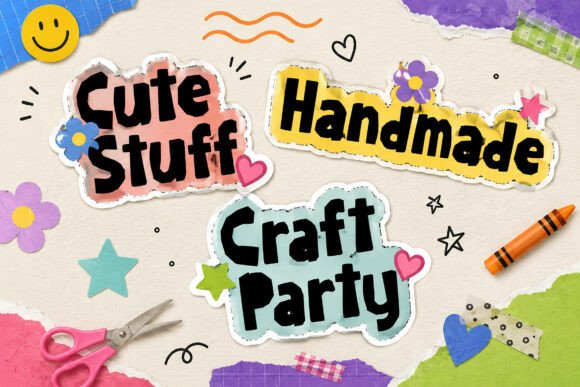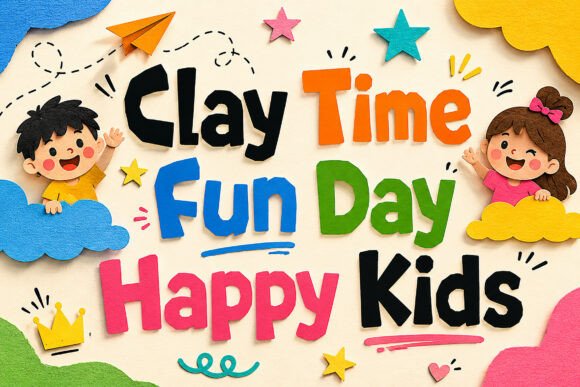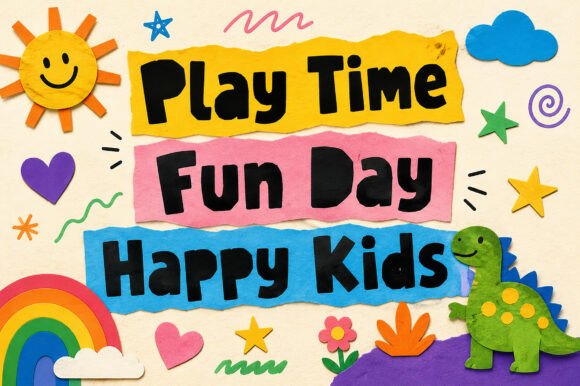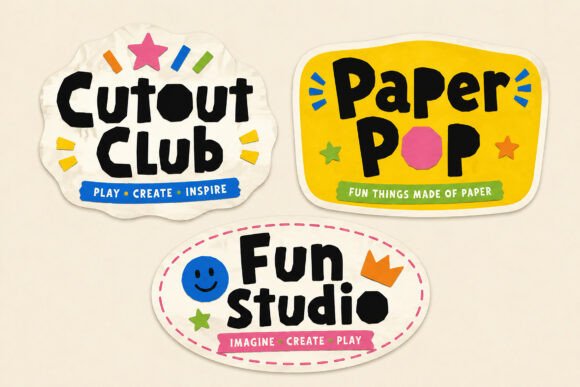
Introducing Cutout: The Playful Handmade Display Font
Are you looking for a font that adds a touch of playfulness and creativity to your designs? Look no further than Cutout, a bold and handmade display font that is perfect for designers, crafters, and DIY enthusiasts. Inspired by paper-cut crafts, scrapbook designs, stickers, and children’s artwork, Cutout is a unique typeface that instantly elevates any project with its chunky shapes, irregular edges, and handcrafted personality.
The Inspiration Behind Cutout
Cutout is a font that celebrates the beauty of handmade crafts. Its design is inspired by the imperfect, yet charming, quality of paper-cut crafts, scrapbook designs, and children’s artwork. The font’s chunky shapes and irregular edges give it a unique, handcrafted look that is reminiscent of a child’s collage or a handmade sticker. This playful aesthetic makes Cutout perfect for designers who want to add a touch of whimsy and fun to their designs.
Cutout is a versatile font that can be used for a wide range of projects, including:
- Kids posters and classroom decorations
- Birthday invitations and party decorations
- Scrapbook designs and photo albums
- Sticker projects and Cricut crafts
- Kids’ products and toy branding
- Packaging and social media graphics
What Makes Cutout Special?
So, what sets Cutout apart from other fonts? Here are a few features that make it special:
- Handmade aesthetic: Cutout has a unique, handcrafted look that gives every design a cheerful and friendly appearance.
- Chunky shapes: The font’s chunky shapes and irregular edges add a playful touch to any design.
- Playful personality: Cutout has a fun and creative personality that is perfect for designers who want to add a touch of whimsy to their designs.
- Easy to use: Cutout is a display font that is easy to use and pairs well with a variety of other fonts.
Tips for Using Cutout
Here are a few tips for using Cutout in your designs:
- Use it as a title font: Cutout is perfect for titles and headings, where its bold and playful aesthetic can really shine.
- Pair it with other fonts: Cutout pairs well with a variety of other fonts, including serif and sans-serif fonts.
- Experiment with colors: Cutout looks great in bright, bold colors, but it can also be used in more subtle, pastel colors.
- Add texture and graphics: To really make your design stand out, try adding texture and graphics, such as paper textures or handmade graphics.
Cutout is a unique and playful handmade display font that is perfect for designers, crafters, and DIY enthusiasts. Its bold and chunky shapes, irregular edges, and handcrafted personality make it a great choice for a wide range of projects, from kids’ posters and classroom decorations to birthday invitations and scrapbook designs. With its easy-to-use design and versatile aesthetic, Cutout is a font that can add a touch of whimsy and fun to any design.